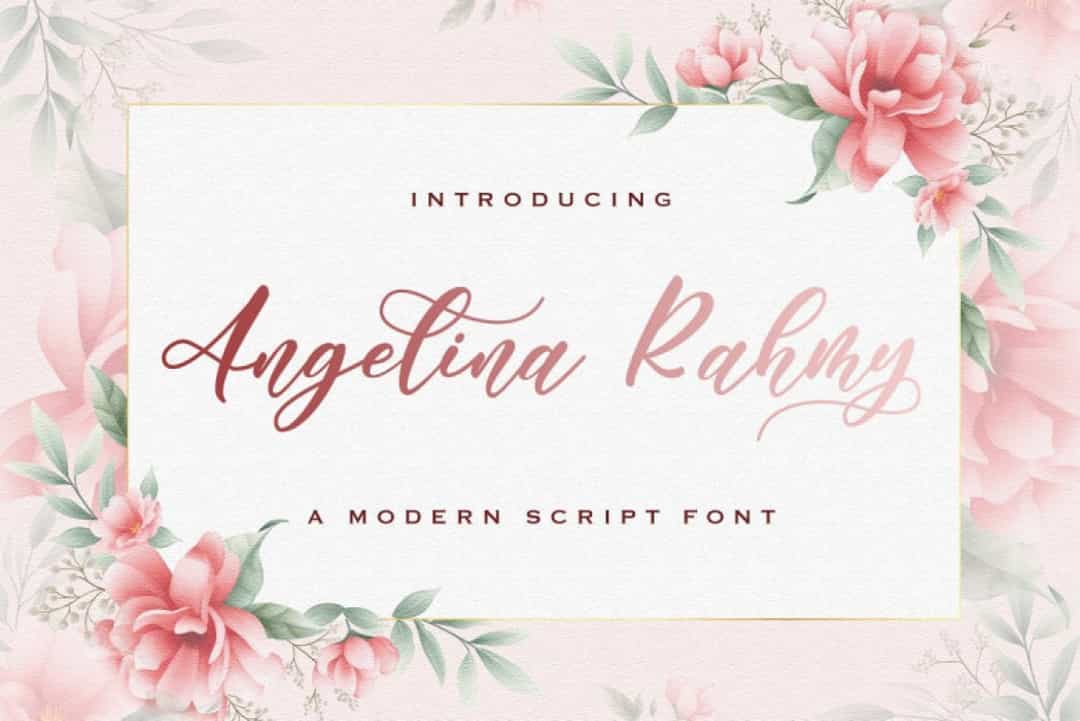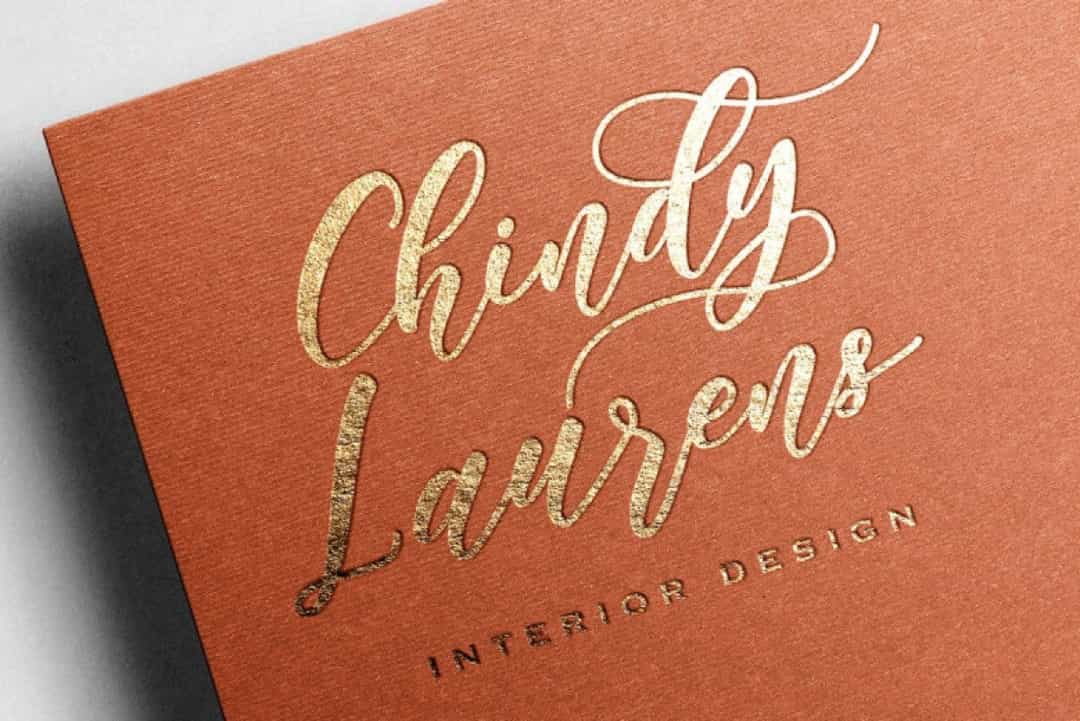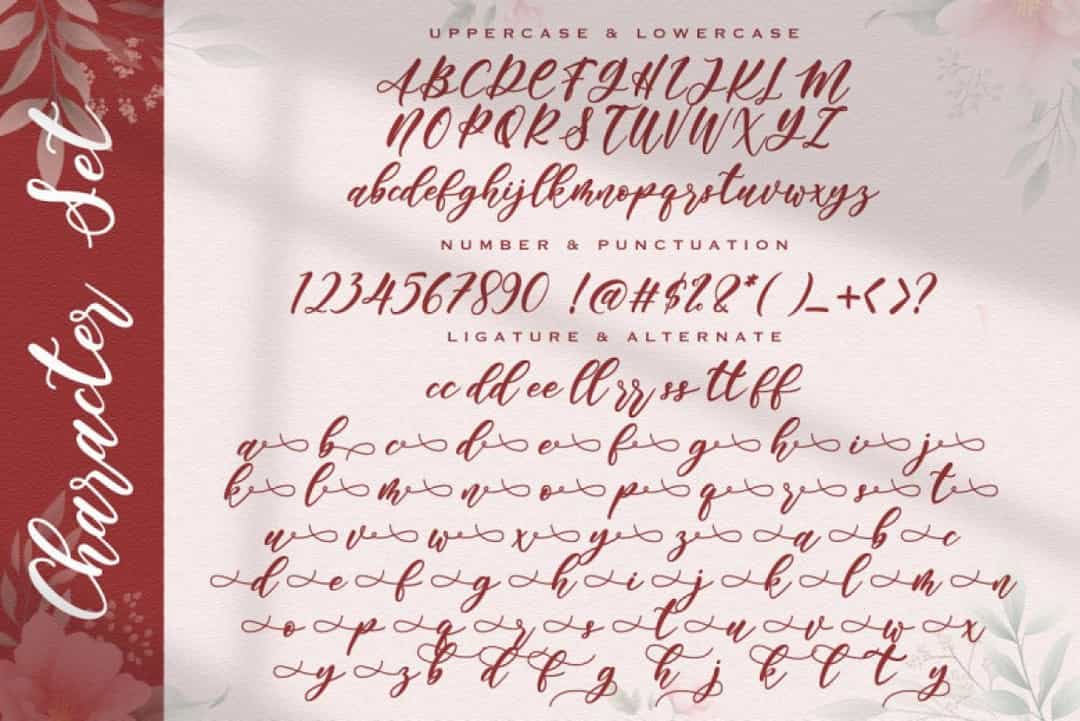
Angelina Rahmy is an elegant script typefaces that can add more values to many design works such as headings, branding for wedding designs, invitations, signatures, logos labels and etc. It is PUA encoded and it has all characters and washes easily accessible!